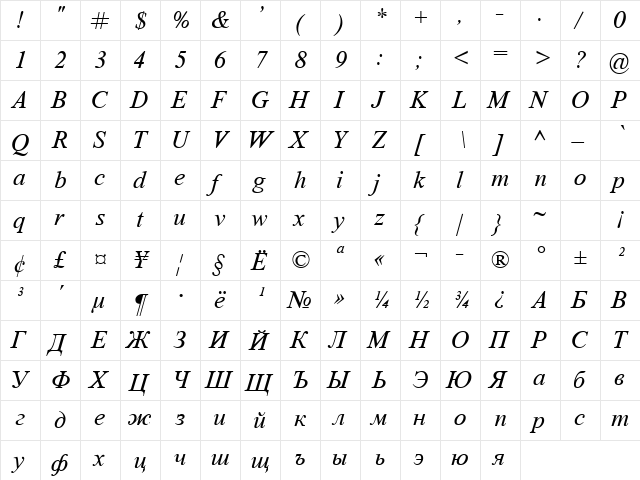
Time Roman Italic
Design Context for Time Roman Typeface
Time Roman is a composed and adaptable typeface that performs quietly and consistently across a wide range of design contexts. Its italic angle brings a sense of urgency and motion to the letterforms.
Pro Tip: Try Time Roman for annotation and caption copy alongside an upright companion — the contrast in angle creates a dynamic but ordered typographic system.